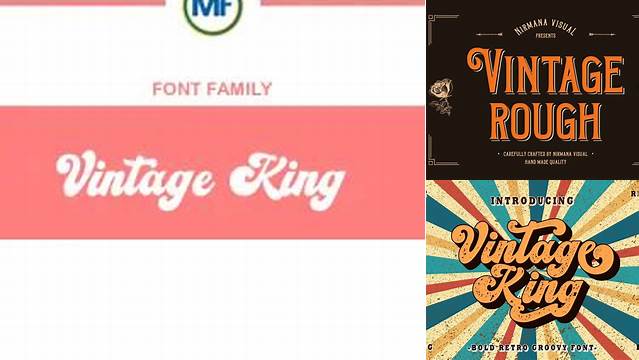
Vintage King Rough Font: Free Download & Design Guide
Hey guys! Are you on the hunt for a font that screams vintage and exudes a rough, edgy vibe? Look no further! The Vintage King Rough Font is here to inject a dose of retro cool into your projects. This font is a fantastic choice for designs that need a touch of character, grit, and that unmistakable vintage feel. Whether you're working on posters, logos, branding, or any other creative endeavor, this font can help you achieve that authentic, old-school look you're after. Let’s dive deep into what makes this font so special, where you can snag it for free, and how to make the most of it in your designs.
What is the Vintage King Rough Font?
The Vintage King Rough Font is a typeface designed to emulate the look of vintage typography, complete with distressed textures and a slightly imperfect feel. This gives it a unique charm that sets it apart from cleaner, more modern fonts. Its appeal lies in its ability to evoke nostalgia and create a sense of history and authenticity. Imagine the lettering on old movie posters, vintage signage, or aged advertisements – that's the kind of aesthetic this font brings to the table.
This font family typically includes a variety of weights and styles, allowing for versatility in its application. You might find regular, bold, and italic versions, as well as variations with different levels of roughness or texture. This range of options means you can use it for headlines, body text, and everything in between. The rough edges and slightly uneven lines give it a handcrafted feel, as if it were lettered by hand using traditional methods. This is a big part of its appeal, especially in a digital world where everything can sometimes feel too polished and perfect.
The beauty of the Vintage King Rough Font is that it's not just a font; it's a storytelling tool. It adds depth and personality to your designs, helping you communicate a specific mood or era. If you're aiming for a vintage, retro, or even slightly grungy aesthetic, this font is an invaluable asset. It’s perfect for projects that need to stand out and make a statement, offering a visual texture that's both eye-catching and engaging.
When we talk about the key features of the Vintage King Rough Font, the most striking characteristic is, of course, its rough texture. Unlike smooth, clean fonts, this one has deliberately distressed edges and surfaces. This gives the letters a worn, aged appearance, as if they’ve been through years of use and exposure. This roughness isn't just a cosmetic effect; it’s a fundamental part of the font’s identity and what makes it so appealing for vintage-themed designs.
Another important feature is the font’s overall style. It often incorporates design elements reminiscent of early 20th-century typography, such as bold letterforms, serifs, or slab serifs. These features contribute to its vintage feel and make it suitable for projects that aim to capture a sense of history. The font might also include stylistic alternates or ligatures, which are special letter combinations that add to its unique character. These little details can make a big difference in the overall look and feel of your design.
Versatility is another hallmark of the Vintage King Rough Font. While it’s perfect for vintage designs, it can also be used in a variety of other contexts. Its bold, textured appearance makes it great for headlines, posters, and logos, where it can grab attention and make a statement. But it can also be used in smaller sizes for body text, especially in designs where you want to add a touch of personality. The key is to use it thoughtfully and in a way that complements the overall design.
Furthermore, the legibility of the font is a crucial consideration. Despite its rough texture, a well-designed Vintage King Rough Font should still be easy to read. This means that the letterforms should be clear and distinct, even with the distressed effects. The spacing between letters and words should also be carefully considered to ensure readability. After all, a beautiful font is only useful if people can actually read it!
By understanding its key features, knowing where to find it, and learning how to use it effectively, you can unleash your creativity and create stunning designs that capture the essence of a bygone era. So go ahead, embrace the vintage vibe and let the Vintage King Rough Font add a unique and timeless touch to your work. Remember to experiment, have fun, and let your creativity shine!